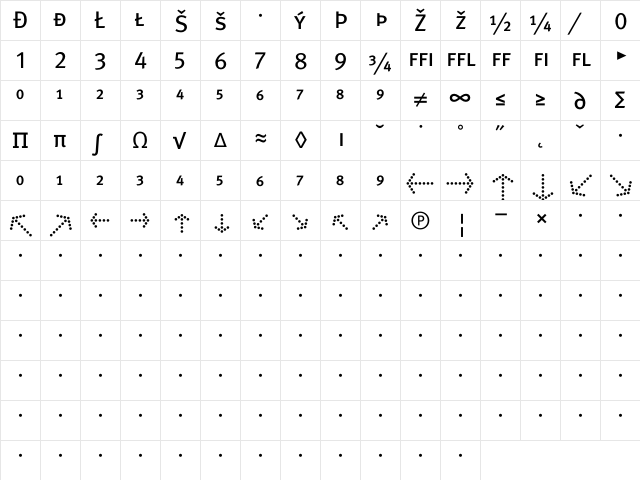
Meta Book Caps Exp
Design Context for Meta Typeface
Meta is a composed and adaptable typeface that performs quietly and consistently across a wide range of design contexts.
Pro Tip: Pair Meta with a font of contrasting weight or personality to build a more expressive typographic hierarchy.